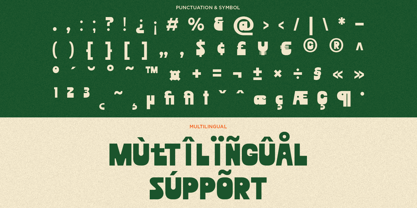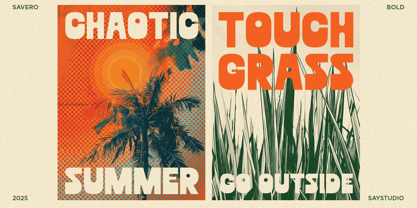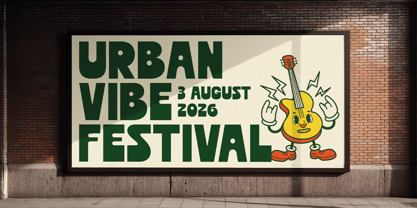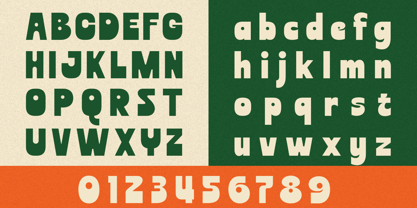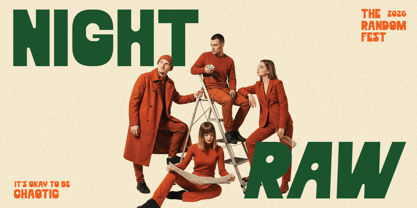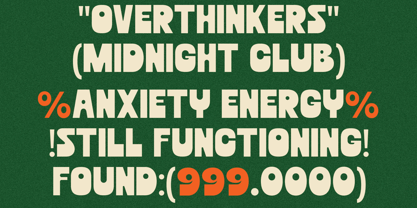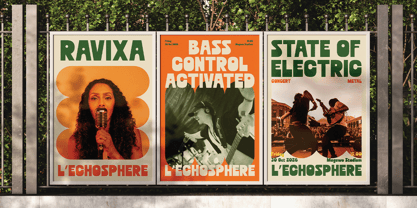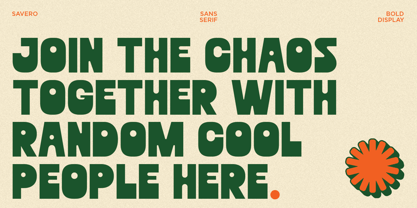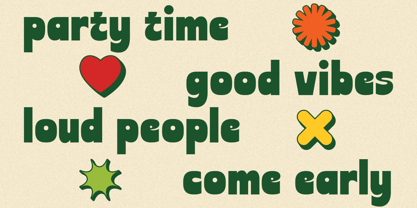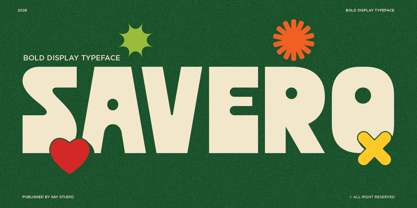
Savero
by Say Studio
The Savero Font Family was designed by Mussyayin and published by Say Studio. Savero contains 2 styles and family package options. More about this family
Savero is a bold display typeface that infuses a playful and energetic personality into modern typography. Featuring strong, chunky letterforms and smooth rounded edges, it offers a powerful visual presence while maintaining a friendly and approachable vibe. Its distinctive shapes make it instantly eye-catching, making it perfect for designs that need to stand out. Designed for creative versatility, Savero excels in branding, packaging, posters, and lifestyle visuals. Its bold structure ensures excellent readability at large sizes, making it ideal for headlines, logos, and promotional graphics. The playful aesthetic also makes it an excellent choice for food brands, children's products, and vibrant modern identities. With multilingual support and thoughtfully crafted alternates, Savero easily adapts to a wide range of creative projects. Whether you're developing a fun brand, launching a bold campaign, or creating standout product designs, Savero delivers impact, clarity, and a unique visual charm.
Designers: Mussyayin
Foundry: Say Studio